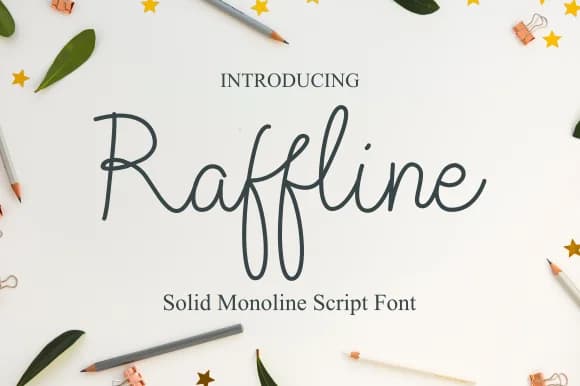
1 / 3About Raffline Script Font
Raffline Script Font by Sibelumpagi Studio is a flowing monoline script that bridges formal elegance with contemporary approachability. The design maintains a consistent line weight throughout, making it remarkably legible even at smaller sizes, a quality that distinctly sets it apart from many decorative scripts in the market. Its beautifully balanced letterforms and generous spacing work effectively across both digital and print applications, adapting to whatever medium you're working with. This typeface genuinely excels in wedding invitation suites where couples need a romantic yet readable aesthetic, and it's equally effective for boutique business card designs that help creative professionals stand out. Etsy sellers rely on it for product label designs and packaging projects, while small businesses favor it for event stationery, greeting cards, and social media graphics. The consistent monoline construction ensures clean, reliable rendering across different mediums and formats, maintaining legibility whether you're using it for branding, custom projects, or decorative applications. The versatility of Raffline Script makes it an excellent choice for anyone seeking a script typeface that doesn't sacrifice readability for style. Discover this font on Creative Fabrica and add refined letterforms to your next creative project.
- Elegant, Flowing, Raffline
Raffline Script Font is a script font that shines as a display or heading face. Pair it with a clean sans-serif or serif font for body text β the contrast creates a clear hierarchy while the two styles stay balanced and easy to read.